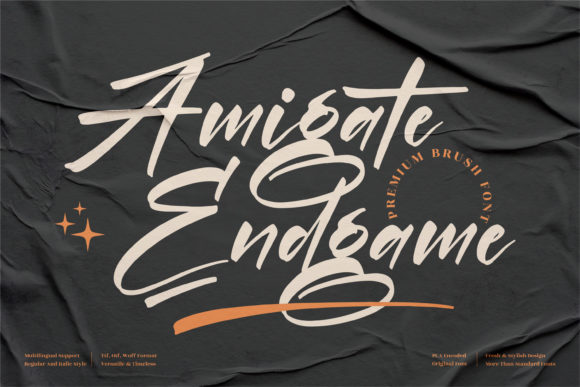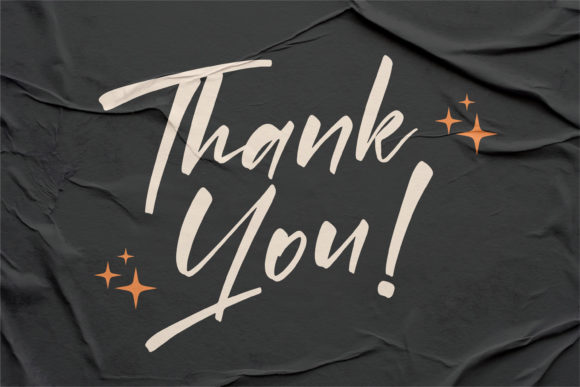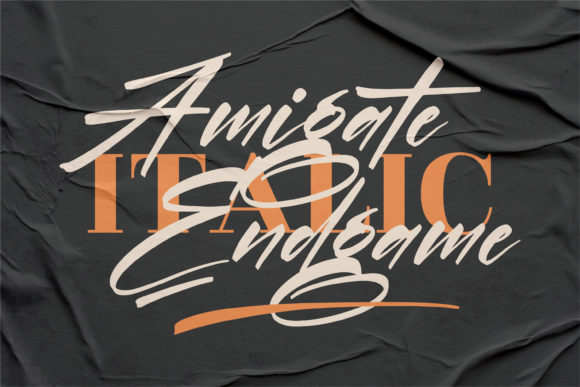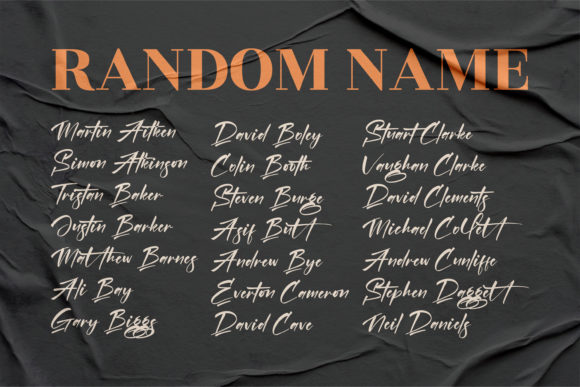
Amigate Endgame Font
About Amigate Endgame Font
Amigate Endgame is a gorgeous and bold handwritten font, crafted to give your headlines and logotype projects a stylish touch. This font reads as strong, confident, and dynamic and can add tons of trendy character to your designs.